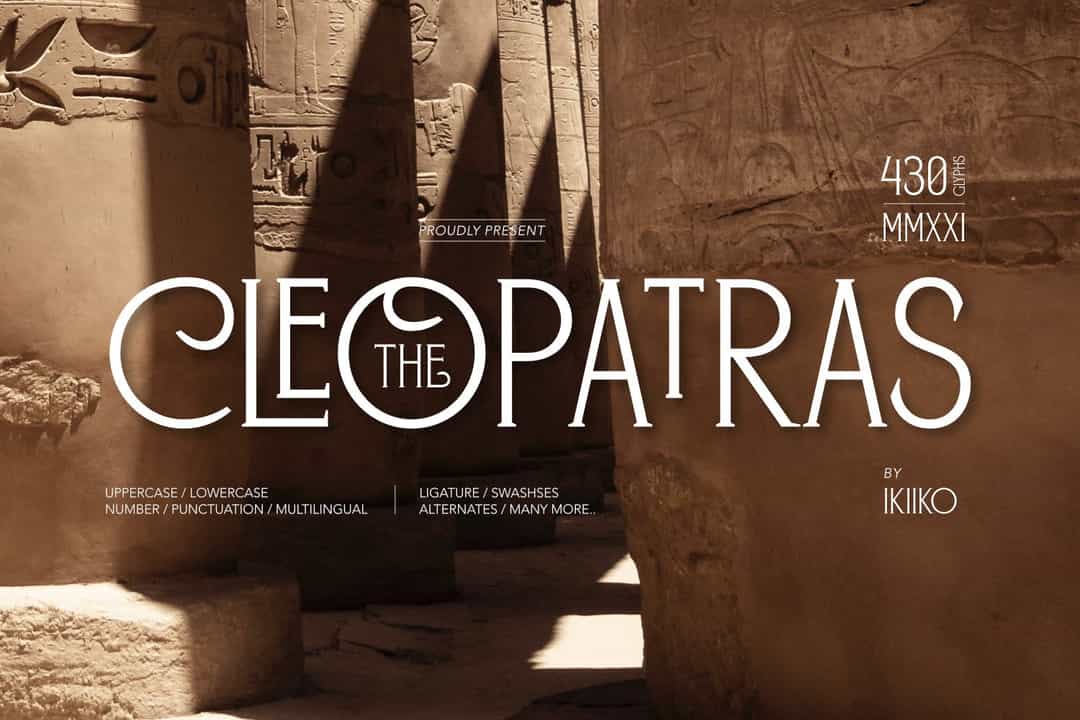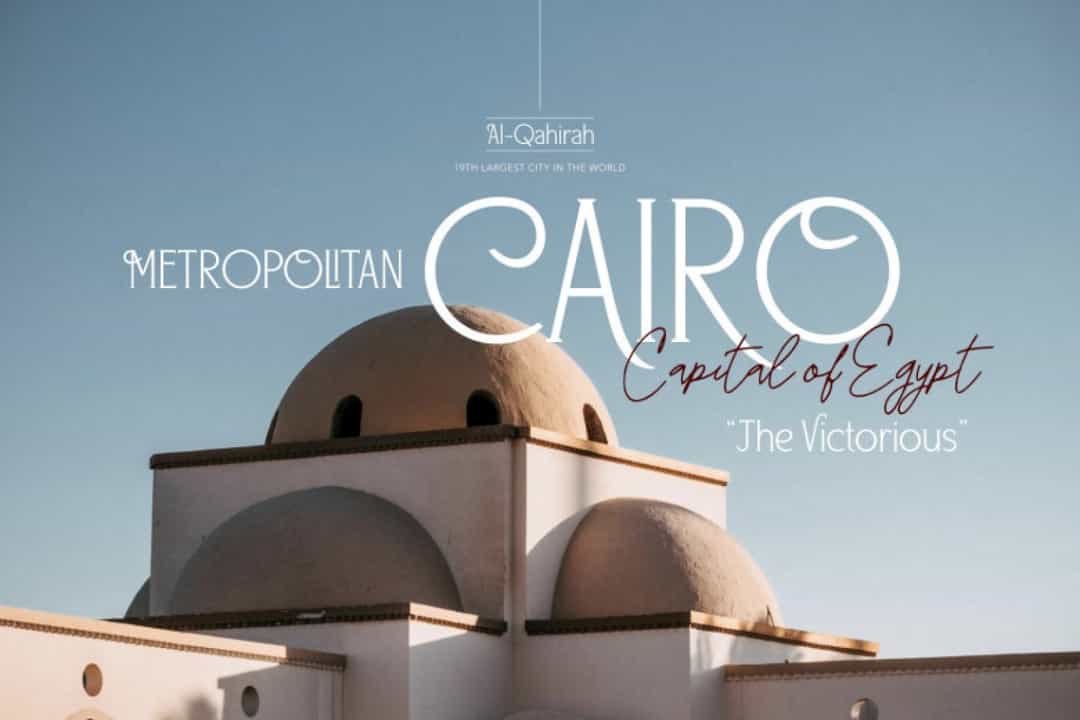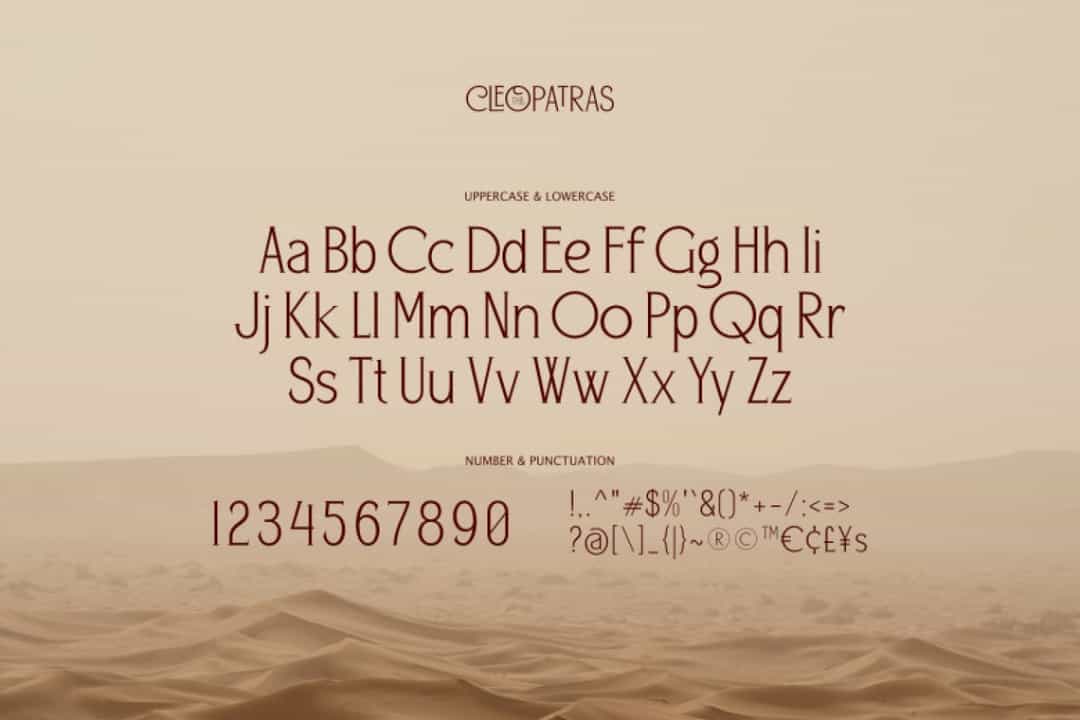
Cleopatras Serif Font was designed by ikiiko and features unique characters with various styles to choose from, making this font versatile for creating diverse characters using various techniques.